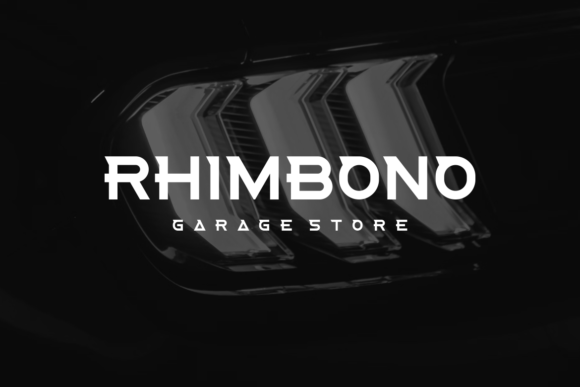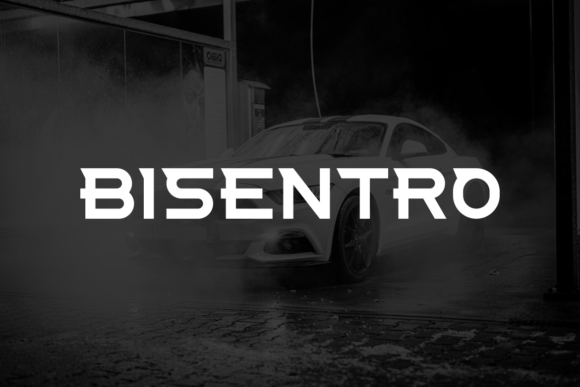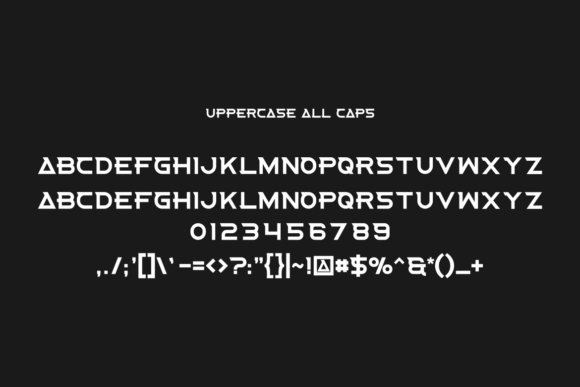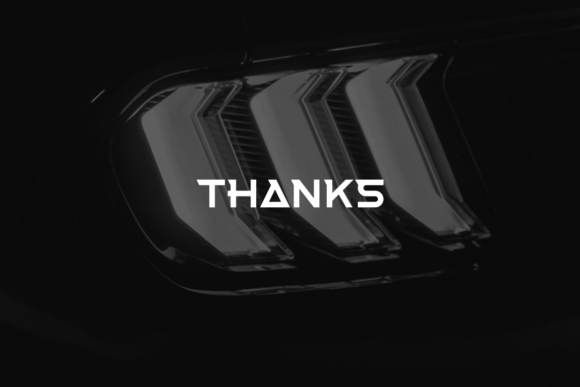
Bisentro Font: Elevate Your Designs with a Sleek, Modern Techno Font
In the realm of digital design, typography plays a pivotal role in conveying messages, setting tones, and capturing attention. Among the myriad of fonts available, the Bisentro font stands out as a beacon of modernity and technological advancement. This sleek, modern techno font is meticulously crafted to blend clean lines with a futuristic aesthetic, making it an ideal choice for tech-focused designs and digital projects.
The Essence of Bisentro Font
Bisentro is not just another font; it’s an experience. Its design is centered around creating a visual impact that resonates with the tech-savvy audience. The clean lines and futuristic look of Bisentro ensure that your designs exude a sense of innovation and sophistication. Whether you’re working on a website, a mobile app, or any digital platform, Bisentro provides the perfect blend of style and readability.
Key Features of Bisentro Font
- Modern and Sleek Design: Bisentro boasts a contemporary design that is both sleek and modern. Its clean lines and geometric shapes give it a distinctive look that sets it apart from traditional fonts.
- High Readability: Despite its futuristic appearance, Bisentro is highly readable, making it suitable for a wide range of applications, from digital interfaces to print materials.
- Versatility: Bisentro is incredibly versatile, capable of adapting to various design contexts. Whether you’re designing a logo, a website, or a digital advertisement, Bisentro can be seamlessly integrated.
- Tech-Focused: As a techno font, Bisentro is specifically designed with technology and digital media in mind. It speaks the language of innovation and modernity, making it perfect for tech-related projects.
Applications of Bisentro Font
The versatility of Bisentro makes it suitable for a myriad of applications. Here are some of the most notable uses:
- Digital Interfaces: For websites, mobile apps, and software, Bisentro provides a clean and modern look that enhances user experience.
- Branding and Logo Design: The unique and memorable appearance of Bisentro makes it an excellent choice for logos and brand identities, especially for tech companies.
- Digital Marketing Materials: From digital advertisements to social media posts, Bisentro can help your marketing materials stand out with its sleek and professional appearance.
- Print Materials: Although Bisentro is optimized for digital use, its clean design also makes it suitable for print materials such as brochures, flyers, and business cards.
Why Choose Bisentro Font?
In a world where digital presence is paramount, choosing the right font can make all the difference. Bisentro offers a unique combination of style, readability, and technological relevance. Here are a few reasons why Bisentro should be your go-to font for tech-focused designs:
- Unique Aesthetic: Bisentro provides a fresh and distinctive look that can set your designs apart from the crowd.
- Enhanced Readability: Its high readability ensures that your message is communicated effectively, whether on digital or print platforms.
- Future-Proof Design: With its futuristic look, Bisentro is well-suited for brands and projects looking to convey a sense of innovation and forward-thinking.
Bisentro font is a powerful tool for designers and crafters looking to infuse their projects with a modern, techno aesthetic. Its blend of clean lines, futuristic look, and high readability makes it an excellent choice for a wide range of applications. By choosing Bisentro, you’re not just selecting a font; you’re embracing a design philosophy that values innovation, clarity, and style. Whether you’re working on a digital project or a print material, Bisentro is poised to elevate your designs to new heights.